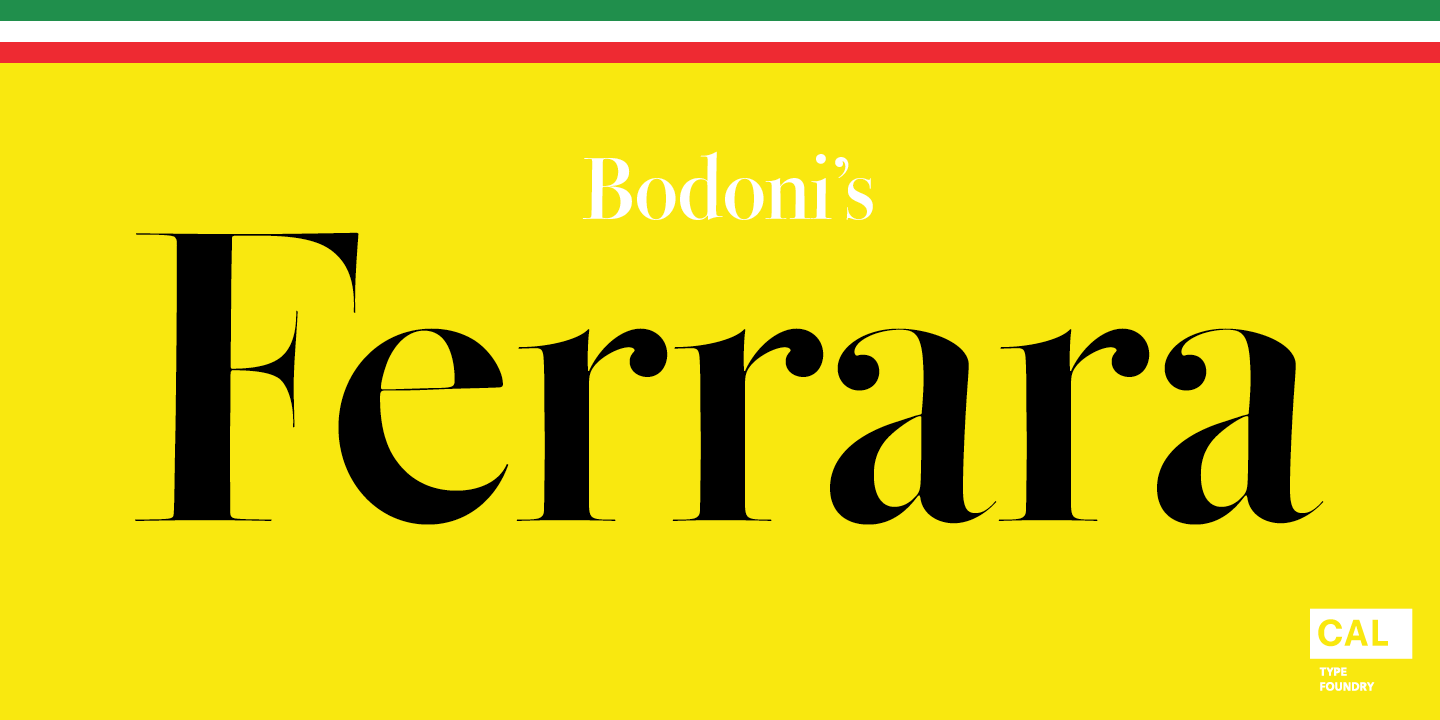
The CAL Bodoni Ferrara Font is incredibly versatile, making it an exquisite choice for a wide array of design projects that aim to convey a sense of high fashion, timeless luxury, and classic elegance. Imagine it gracing the mastheads of haute couture magazines, adding a distinguished flair to bespoke branding for upscale jewelry or perfume, or bringing a sophisticated, dramatic feel to editorial layouts for fine art and luxury lifestyle publications. It's also fantastic for crafting elegant invitations for exclusive events, enhancing product packaging for premium goods, and designing captivating web headers that stand out with their polished allure. Its inherent grace, sharp contrast, and precise terminals make it perfect for any project striving to communicate prestige, artistry, and an undeniable sense of enduring style.
What makes CAL Bodoni Ferrara Font so exciting is its unique ability to embody the iconic elegance of the Bodoni typeface while often introducing subtle refinements or historical nuances that give it a distinct character. It typically features strong vertical stress, thin hairlines contrasting with thick main strokes, and a precise, geometric construction that gives it an immediate sense of sophisticated drama and classic beauty. This font doesn't just display text; it makes a grand statement, making your message feel exclusive, artful, and effortlessly chic. Its balance of striking visual presence and remarkable clarity ensures that your designs are not only beautiful but also effectively convey their intended sentiment. It's a typeface that brings an atmosphere of refined glamour and classic authority to your typography, guaranteeing your projects leave a breathtaking and memorable impression.
The CAL Bodoni Ferrara Font family typically includes a comprehensive range of weights and stylistic alternatives to provide extensive creative flexibility. While specific options can differ, you can generally expect to find alternatives like Regular, Italic, Bold, and potentially a Hairline or Black version, often with accompanying stylistic alternates or ligatures that enhance its decorative potential. These different weights and stylistic sets allow you to create dynamic visual hierarchies and add nuanced artistic flair to your typography, ensuring a cohesive and beautifully crafted design. This comprehensive family support ensures that whether you need a strong, elegant headline or a subtle, refined body text, CAL Bodoni Ferrara Font Free Download offers the perfect elements to bring your sophisticated vision to life.